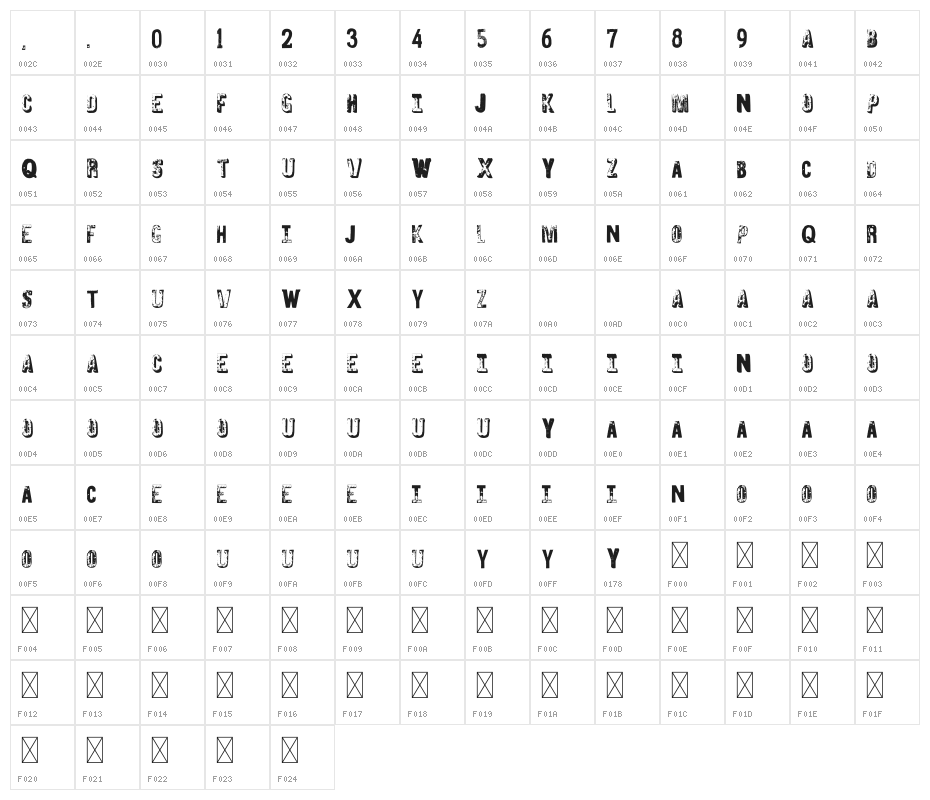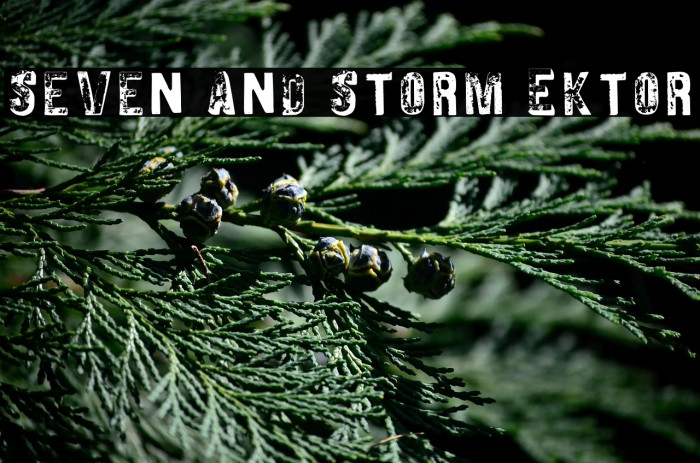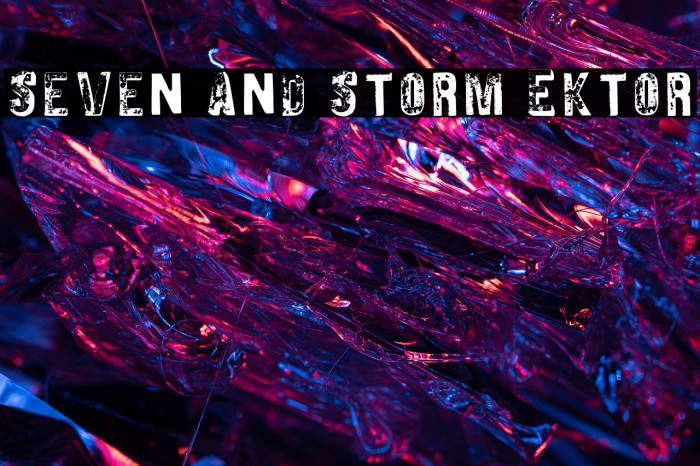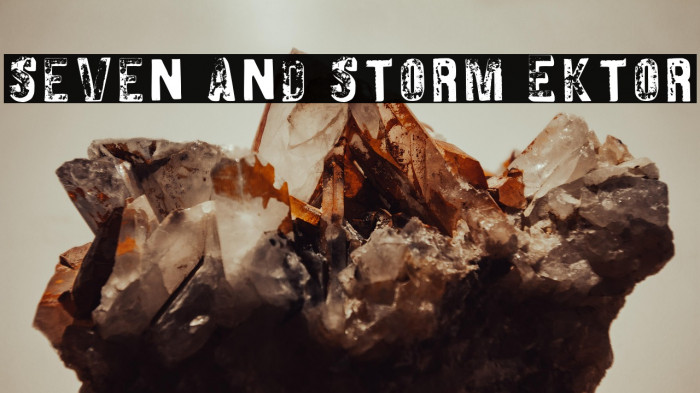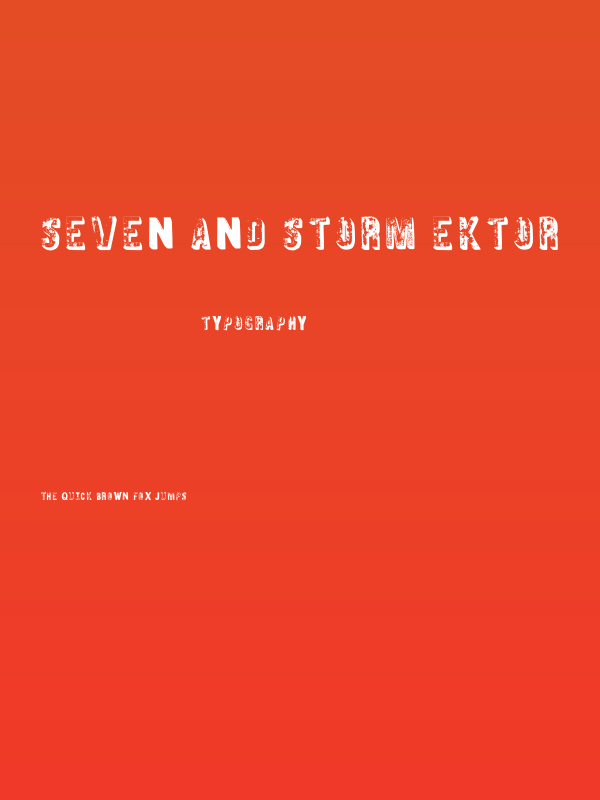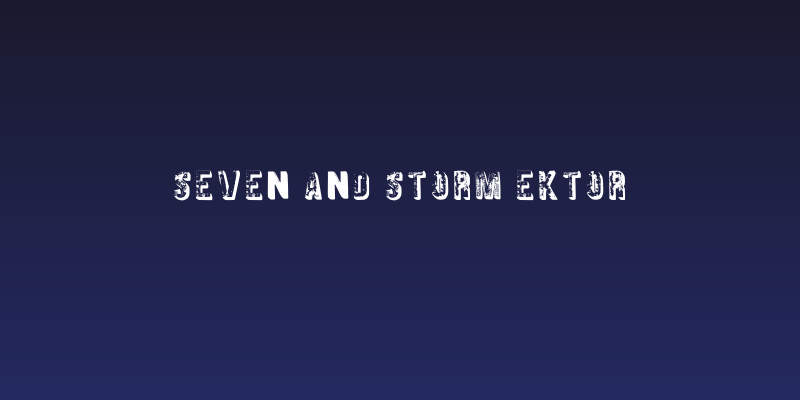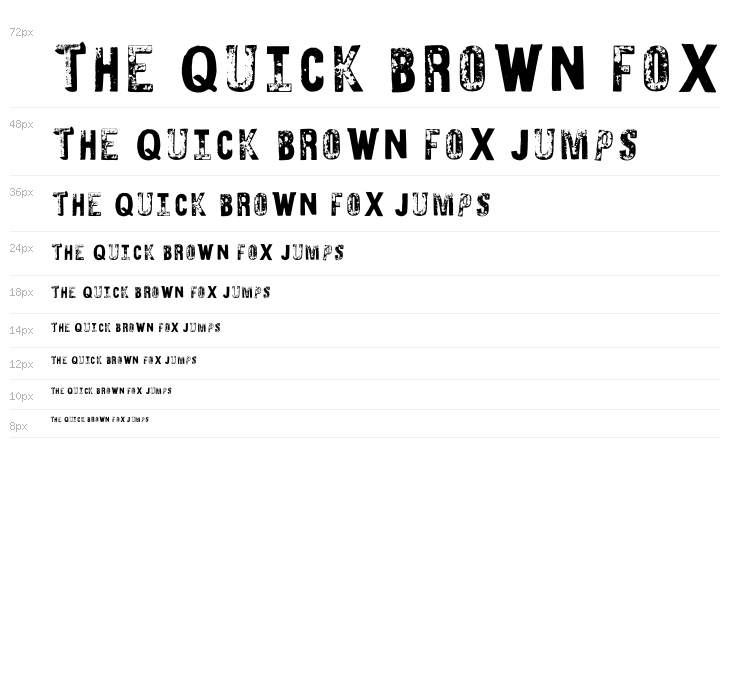
Seven And Storm Ektor Font
Seven And Storm Ektor Description
This font features a bold, distressed style with a rugged and textured appearance. Each character appears as if it has been weathered or eroded, giving it a vintage and industrial feel. The uppercase letters are prominent and impactful, while the numbers and special characters maintain the same distressed aesthetic. The font's unique style makes it stand out, perfect for projects that require a bold statement or a touch of grunge.
| Overall Style | Vintage, Industrial |
| Proposed Projects | Ideal for posters, album covers, branding for edgy products, or any design needing a strong, industrial look. |